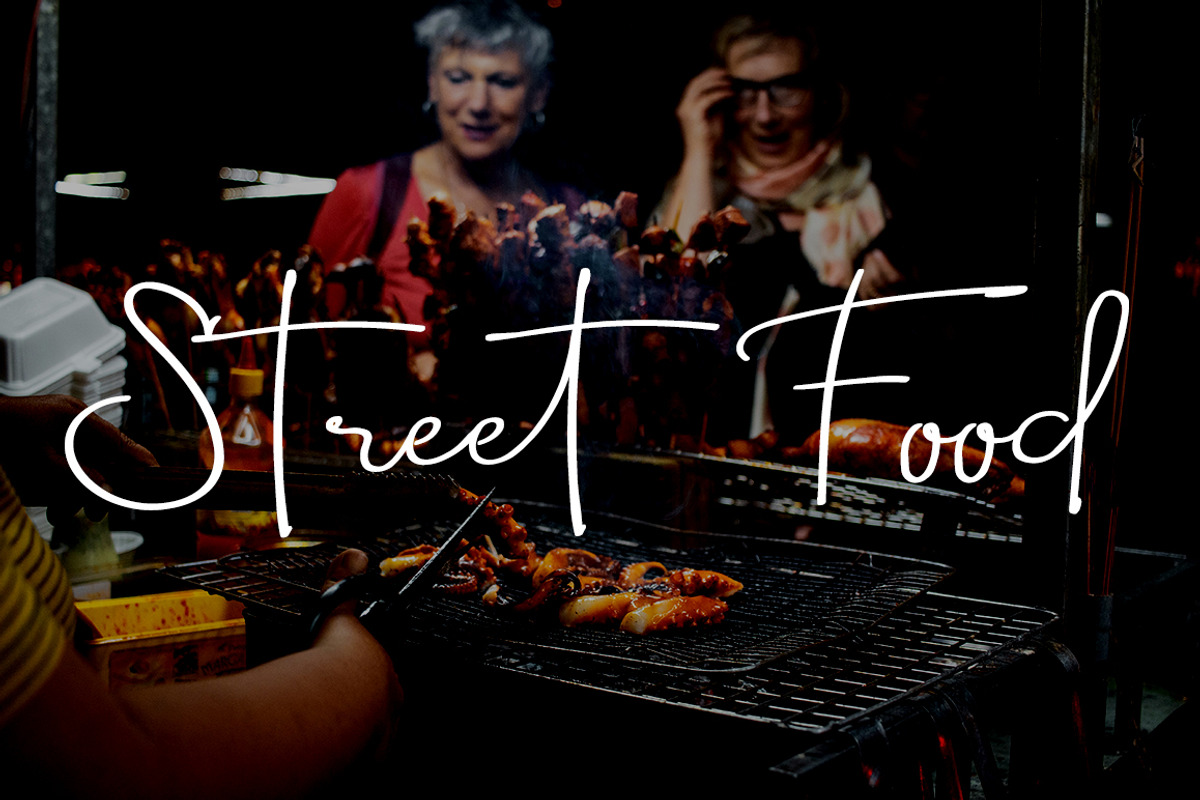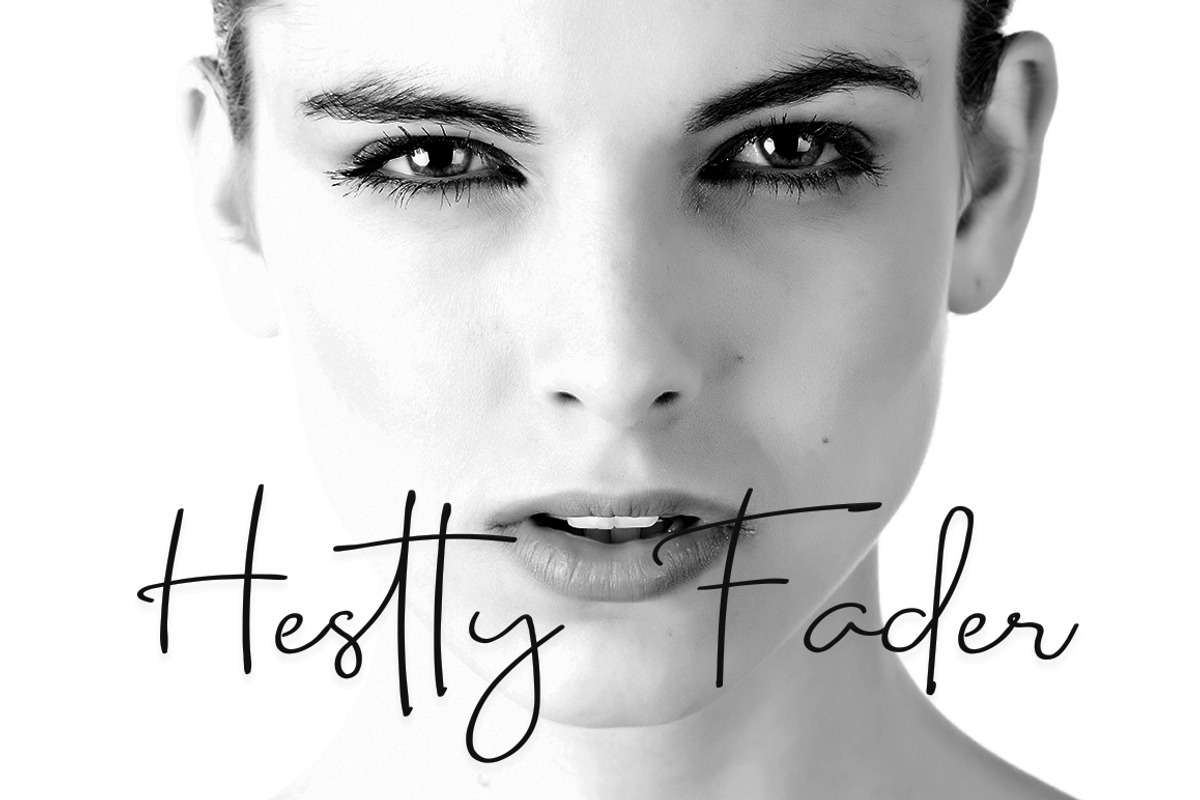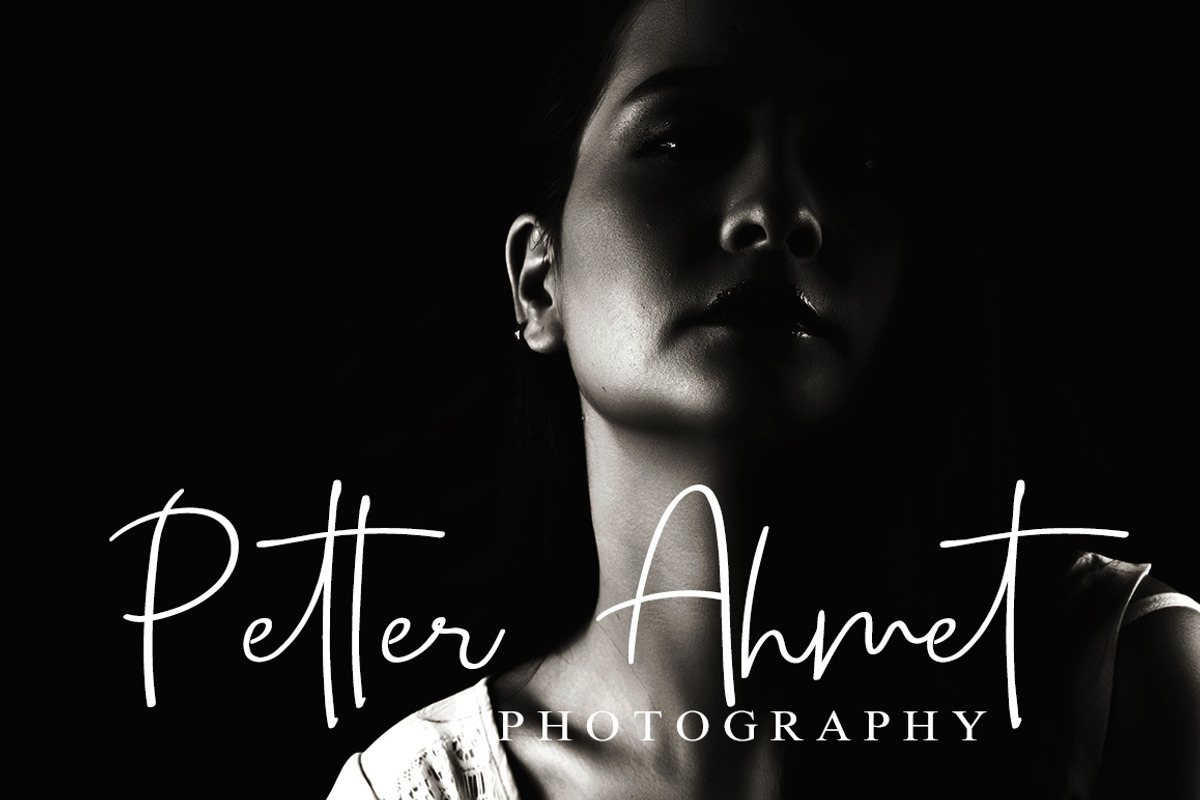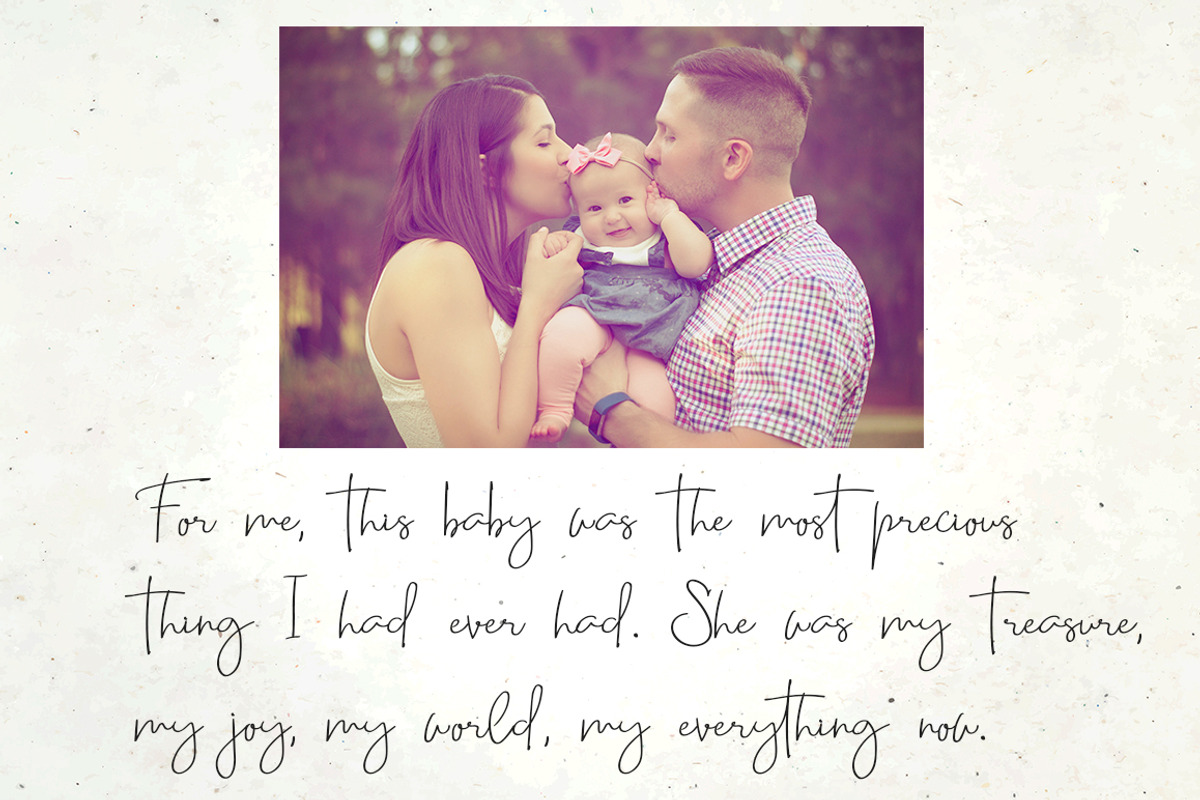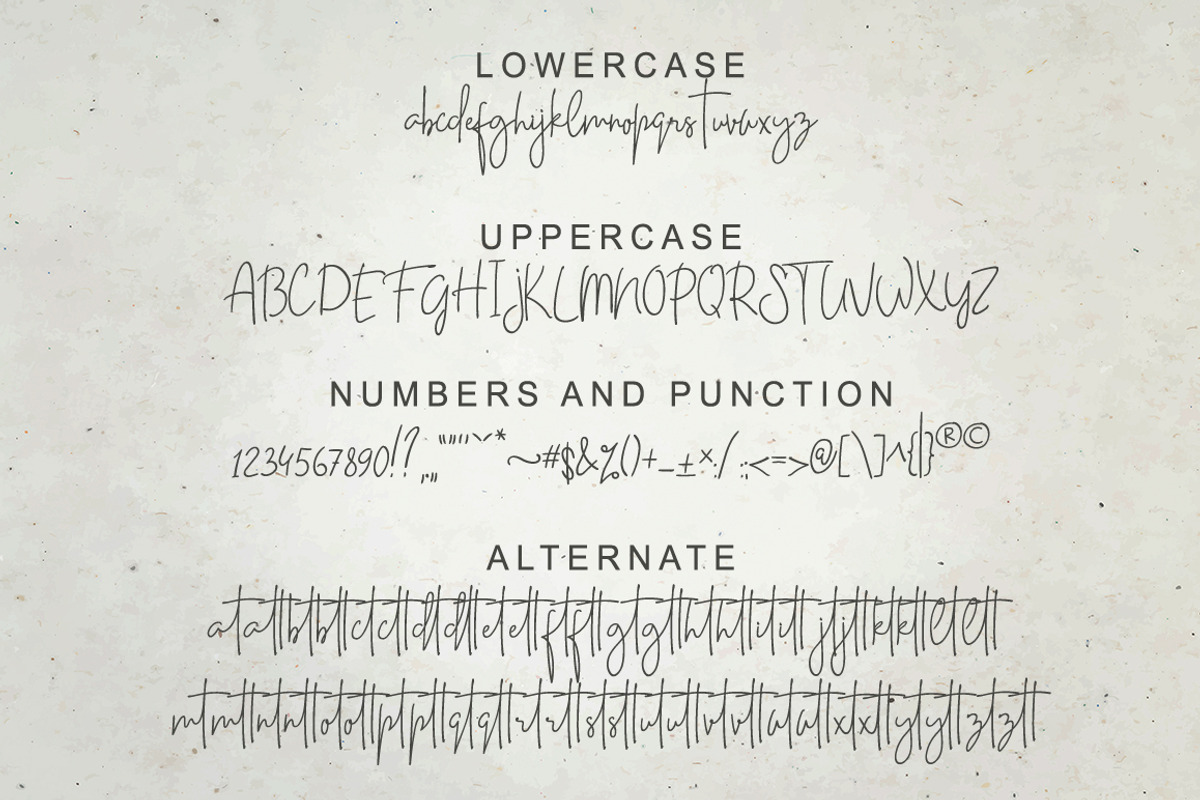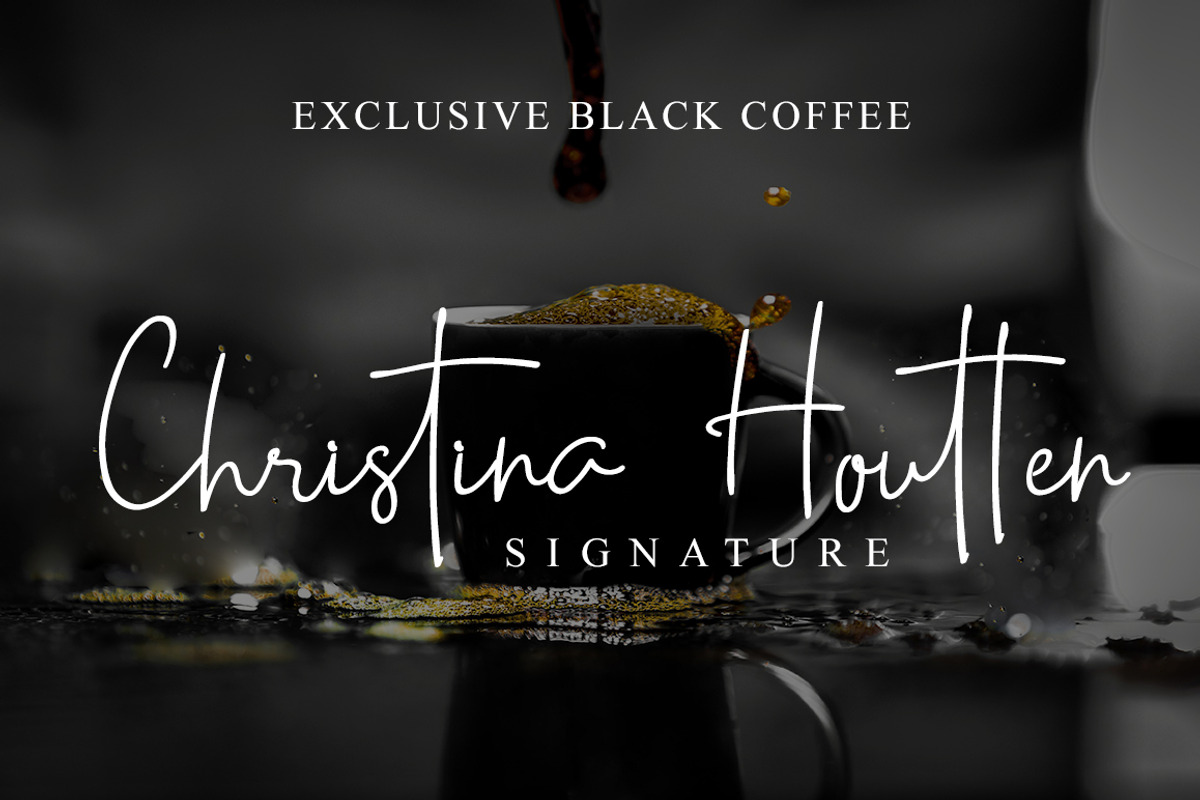
Casttano - Signature Font
Introducing the elegant Casttano font! Casttano is modern feminine font, every single letters have been carefully crafted to make your text looks beautiful. With modern script style this font will perfect for many different project ex: photography, watermark, quotes, blog header, poster, wedding, branding, logo, fashion, apparel, letter, invitation, stationery, etc.
Ligature & alternate glyph: at att bt btt ct ctt dt dtt et ett ft ftt gt gtt ht htt it itt jt jtt kt ktt lt ltt mt mtt nt ntt ot ott pt ptt qt qtt rt rtt st stt ut utt vt vtt wt wtt xt xtt yt ytt zt ztt
Foreign languages support: ÀÁÂÃÄÅÆÈÉÊËÌÍÎÏÐÑÒÓÔÕÖÙÚÛÜÝßàáâãäåæèéêëìíîïðñòóôõöùúûüýÿ
Casttano - Signature Font by BearyType Studio fits naturally into Branding, posters, packaging, typography.